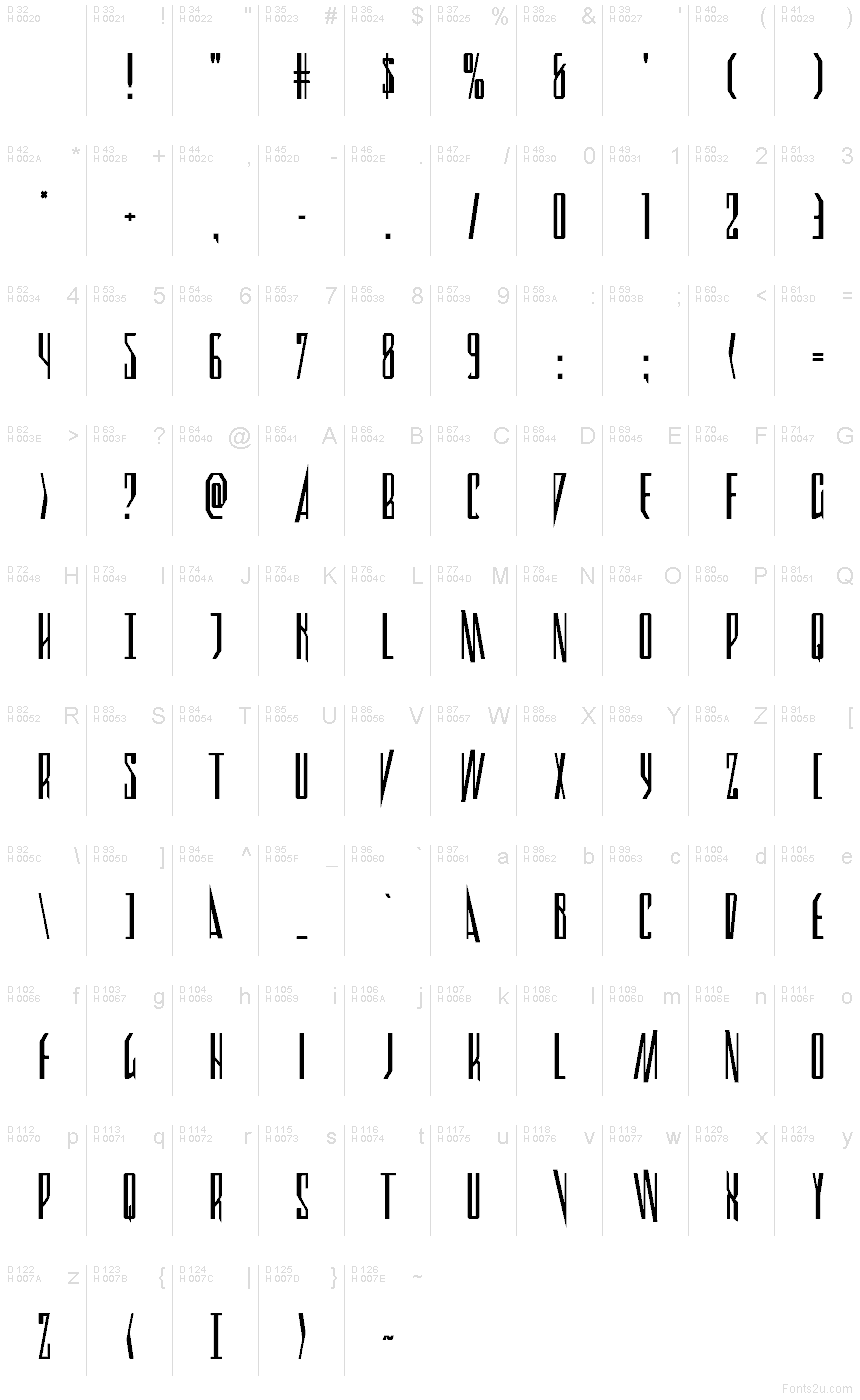
Archnemesis Condensed
Archnemesis Condensed font by Iconian Fonts is a free condensed display typeface from the Archnemesis family. Its calling card is the blade-like geometry: needle tips, slashed joins, and towering verticals that compress words into sharp, high-impact pillars. The rhythm feels fast and ruthless, giving headlines a cinematic snap while staying legible at a glance.
Using Archnemesis Condensed, you get a ruthless tone that shines on game titles, sci‑fi posters, esports branding, techno album art, streaming banners, and bold event flyers. The tight width makes room for long names without losing intensity, and the angular strokes hit like metal. For balance, pair this free font with a simple, wide grotesque for body copy, and add a touch of tracking at larger sizes to amplify the menace.